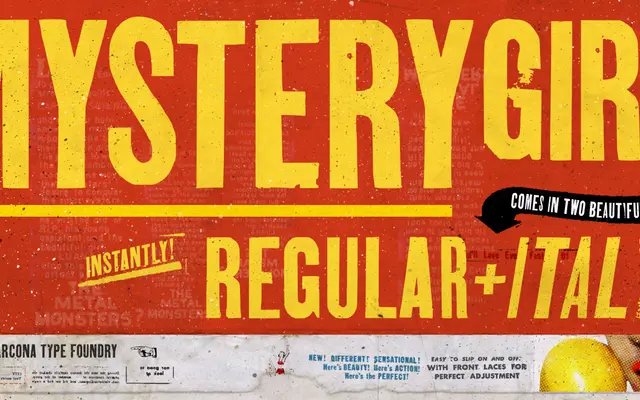
CA Mystery Girl
Cape Arcona · Thomas Schostok
An all-caps distressed display typeface by Thomas Schostok that simulates the imperfections of silkscreen and letterpress printing through pseudo-random OpenType alternates.
Built on a sturdy all-caps structure, the family uses a randomised stylistic alternates feature to introduce the kind of subtle variation that letterpress and silkscreen printing produce by chance. Two styles, Regular and Italic, cover Western and Central European Latin encodings, making it usable across a wide range of European languages. At its best in headline and poster work where a handcrafted, printed quality is wanted without sacrificing legibility.
An all-caps distressed typeface classified by the foundry as Display Distressed, designed to evoke the textural irregularities of silkscreen and letterpress printing through randomised OpenType alternates.